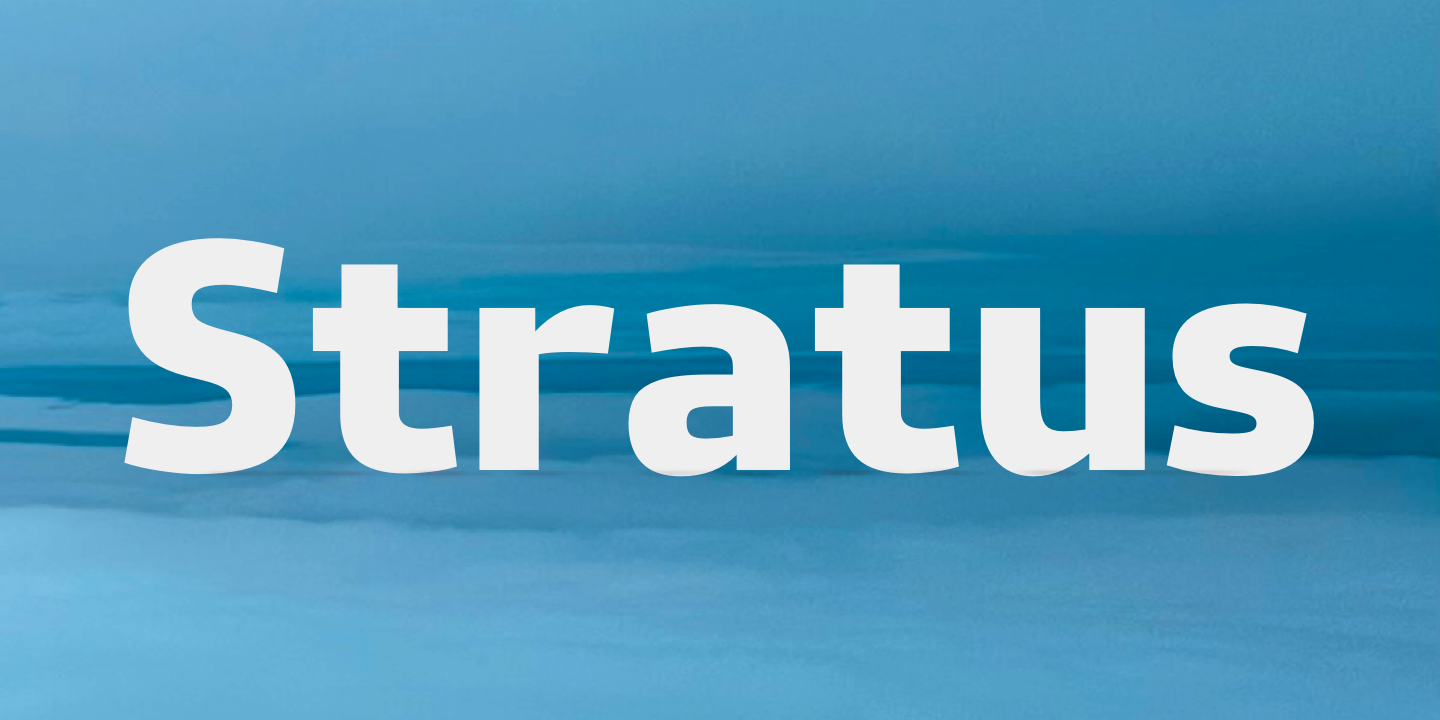
This dynamic typeface is an excellent choice for projects that aim to convey a sense of modern fluidity, technological sophistication, and an airy, almost ethereal quality. Imagine it gracing the branding of innovative cloud computing services, providing a sleek aesthetic for futuristic game interfaces, or adding a high-tech vibe to scientific visualizations. Stratus Font is also perfectly suited for designing streamlined app logos, crafting compelling headlines for digital art exhibitions, or creating impactful visuals for virtual reality experiences. Its often light, precise, and subtly aerodynamic forms make it an ideal option for any design seeking to communicate innovation, lightness, and a forward-thinking vision, such as aerospace industry branding, data analysis dashboards, or modern architectural presentations.
What makes Stratus Font so exciting? It often features clean lines, open counters, and a sense of lightness that evokes imagery of clear skies and advanced technology. This font doesn’t just convey text; it elevates it, imbuing it with a sense of clarity, efficiency, and a touch of futuristic elegance. It’s engineered to offer exceptional readability while simultaneously making a subtle yet powerful visual statement that speaks to precision and innovation. The inherent openness and contemporary feel of its letterforms make it particularly effective for brands that champion progress, transparency, and a clean, sophisticated identity. Its ability to suggest movement and advanced engineering makes it a favorite for tech companies and design firms that focus on cutting-edge solutions.
The Stratus Font family typically offers a range of weights and styles to ensure comprehensive design flexibility, allowing for nuanced visual expressions. You might find options such as Thin, Light, Regular, and perhaps a Medium or Bold weight, along with corresponding italic versions. Each weight is meticulously designed to maintain the font's core characteristics while offering distinct visual impacts, allowing for subtle yet effective typographic hierarchies. These variations enable designers to create sophisticated and highly functional text layouts, differentiating between headlines, subheadings, and body text with elegance and precision. The availability of diverse weights ensures that Stratus Font can be a cornerstone typeface for an entire project, guaranteeing visual consistency and a polished, contemporary appearance across all mediums.
Whether you're developing a groundbreaking software application, building a new corporate identity for a high-tech venture, or simply need a typeface that speaks with modern elegance and an airy, progressive feel, Stratus Font Free Download is an outstanding choice. Its refined design and broad versatility will ensure your message is always delivered with utmost clarity and sophisticated purpose.